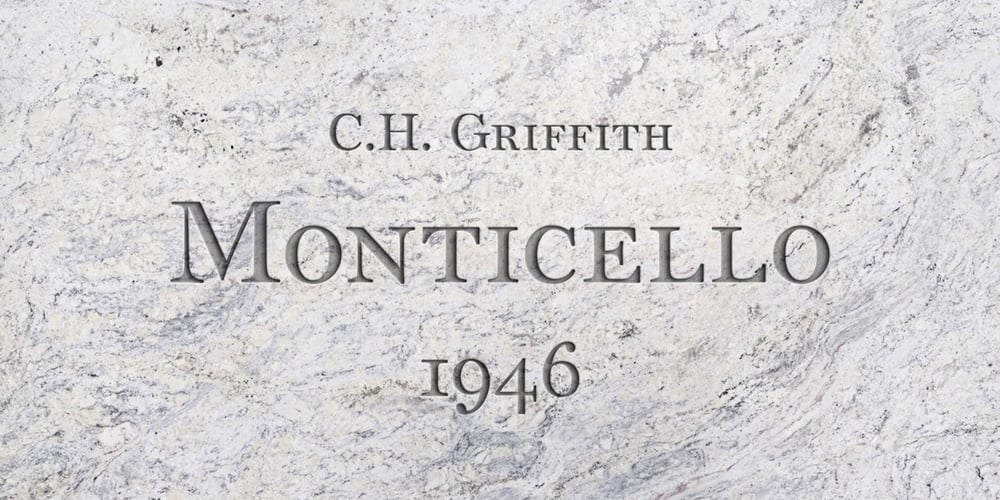
Monticello
Monticello font
Monticello Font Family was designed by Matthew Carter, Chauncey H. Griffith and published by Linotype. Monticello contains 4 styles and family package options. Linotype Monticello was designed by C.H. Griffith in 1946. Its design is based on James Ronaldsons Roman No.1 and Oxford Typefaces from American Type Founders and was revised by Matthew Carter while he was working at Linotype between 1965 -1981.